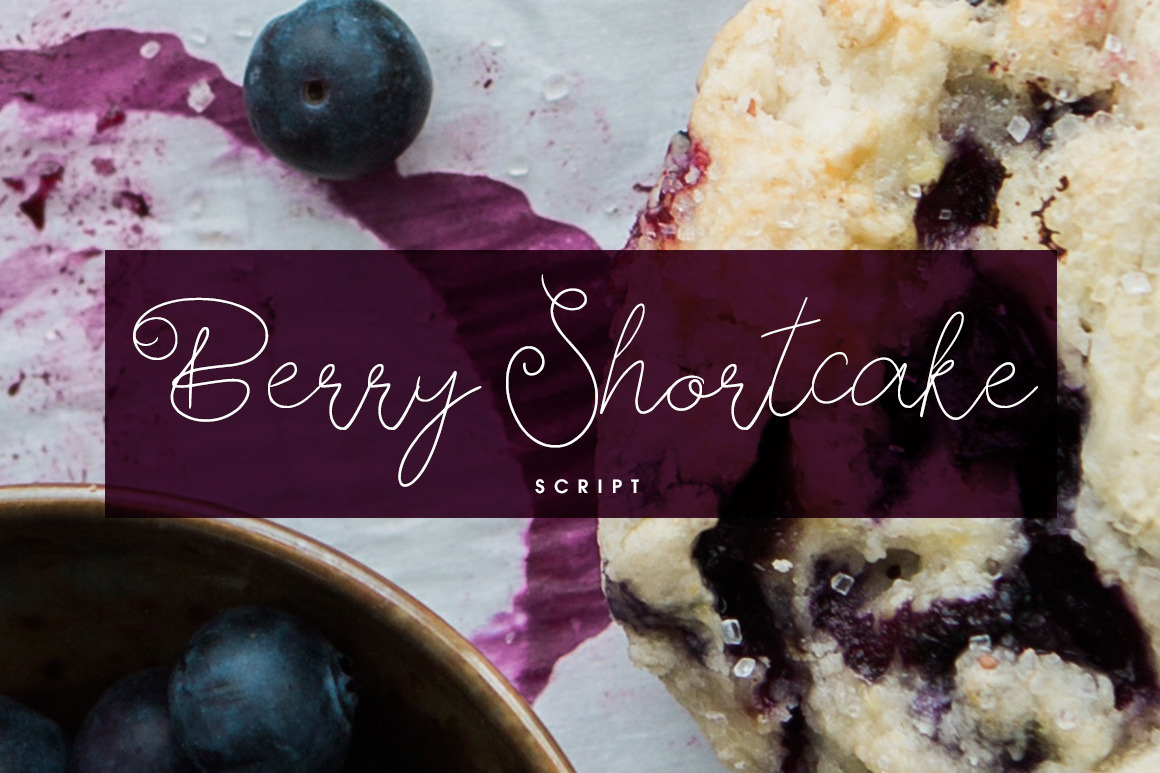
Berry Shortcake Font
This is Berry Shortcake. A beautiful fine script font. This font is part of the Big Bunch of Fonts Volume 2 here https://crmrkt.com/3NkJ